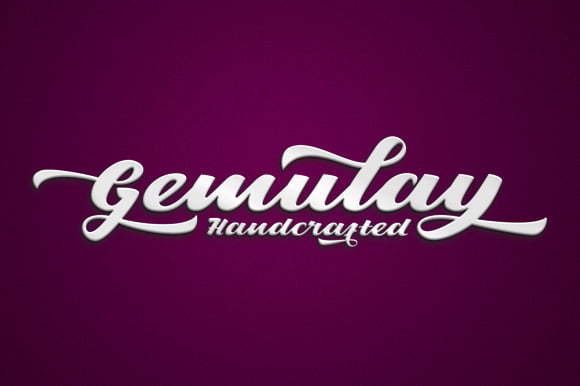
Gemulay Font Free Download
Gemulay is bold, modern, and multi-purpose typeface that combines brush lettering with natural handwriting. It was designed as a display typeface that contains 299 glyphs in total and 126 alternative characters to improve your design. It is suitable for logo, packaging, headline, poster, t-shirt, etc. The alternative characters divided into several OpenType features such as Ligature, Contextual alternates, stylistic sets, and swash. It can be accessed by using OpenType savvy program such as Adobe Illustrator and Adobe InDesign.